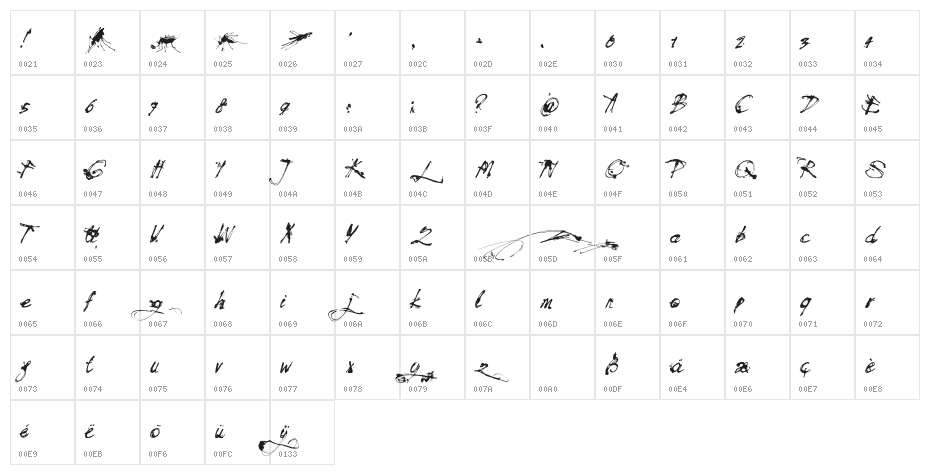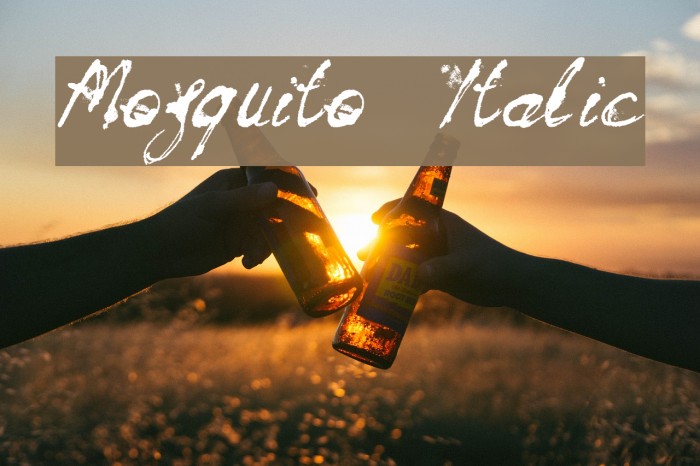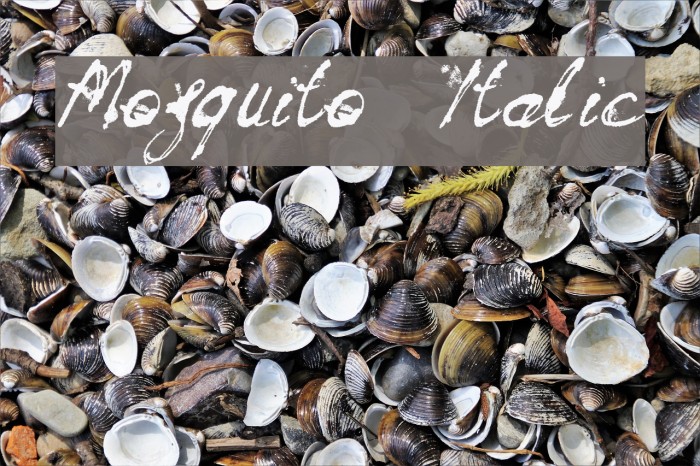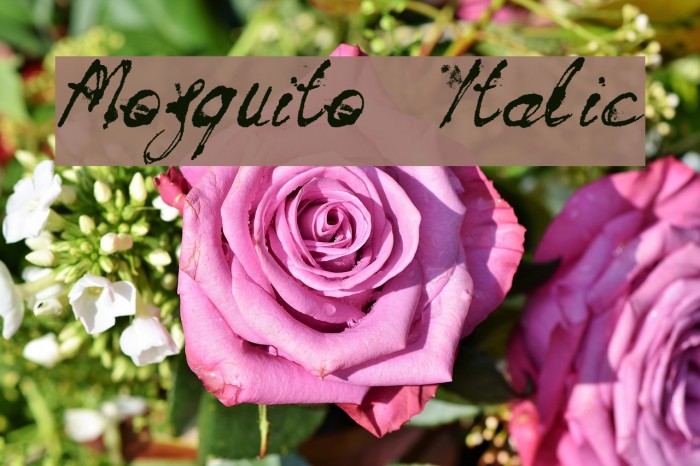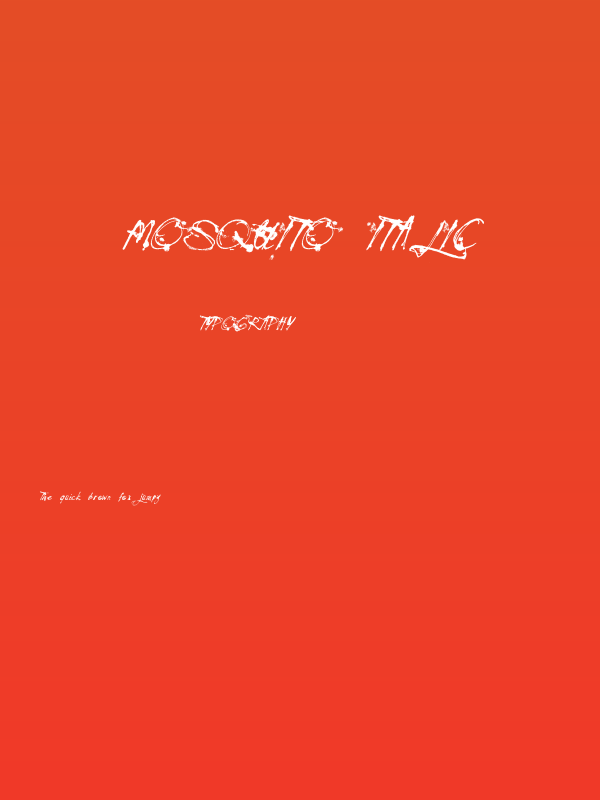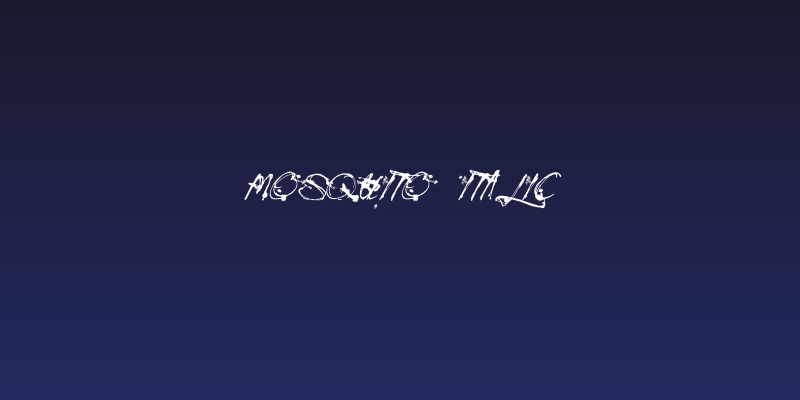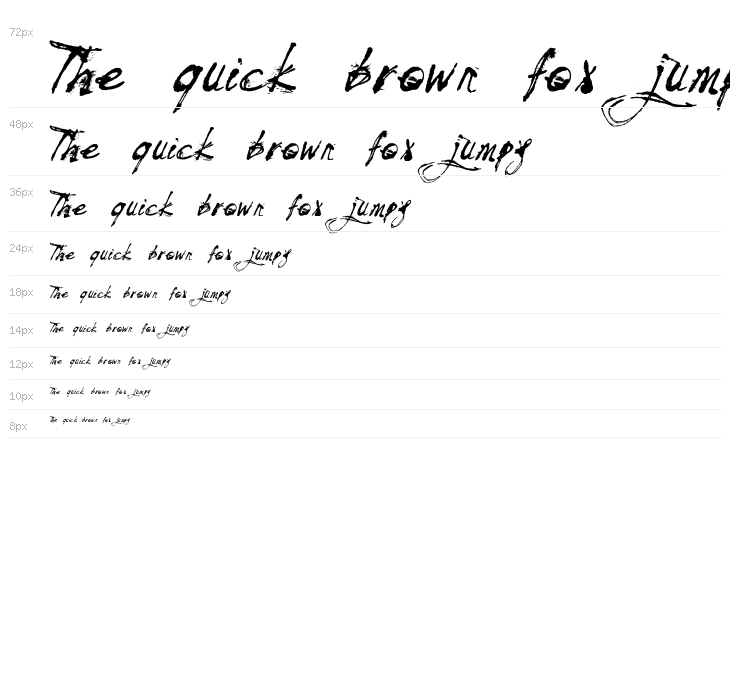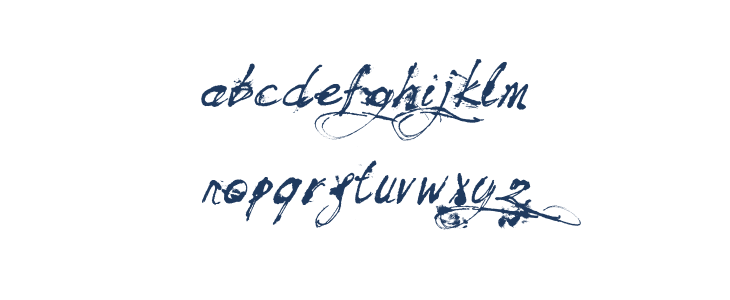
Mosquito Italic Font
Mosquito Italic Description
This font exhibits a highly decorative and artistic style, reminiscent of handwritten script with a chaotic and organic flair. The characters are adorned with intricate details and embellishments, giving them a unique, almost insect-like appearance. The strokes are uneven, with varying thicknesses that create a dynamic and lively texture. This font captures a sense of movement and spontaneity, making it stand out with its unconventional design. The uppercase and lowercase letters maintain a consistent style, while the numerals and special characters integrate seamlessly with the overall aesthetic. The font's distinctiveness makes it suitable for creative and artistic projects where a bold statement is desired.
| Proposed Projects | Ideal for artistic posters, album covers, unique branding, and creative invitations. |